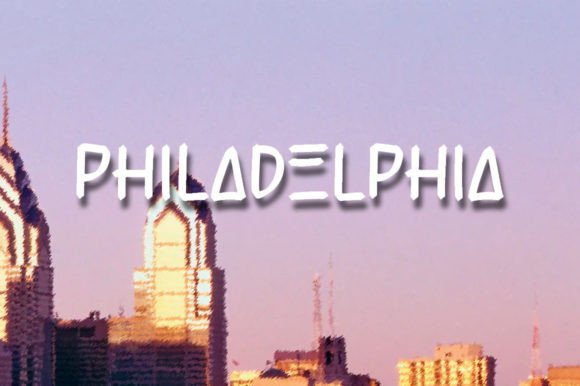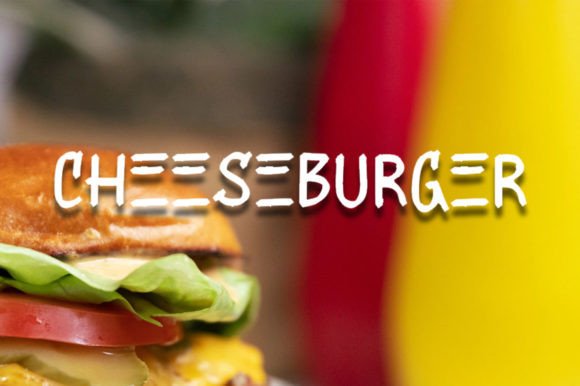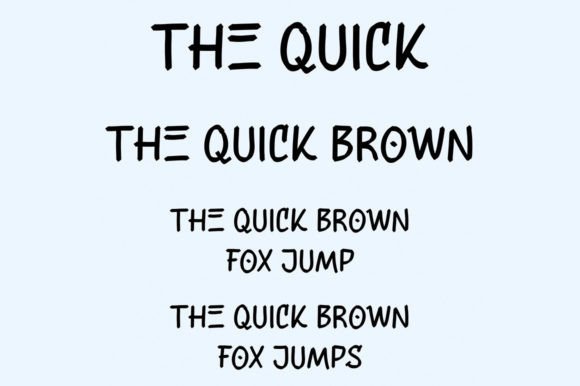
Minke Font
About Minke Font
**”Minke”** is a fun and casual handwritten font that brings a sense of playfulness and informality to your design projects. Whether you’re working on crafts, digital design, presentations, or creating greeting cards, this font is a versatile choice that adds a touch of personality to your work.
In crafting projects, **”Minke”** offers a whimsical and creative aesthetic. Its casual handwritten style complements the handmade and artistic nature of crafting, making it a valuable addition to your toolkit for DIY projects, scrapbooking, and more.
For digital design, **”Minke”** adds a relaxed and approachable vibe to your content. Whether you’re using it for web graphics, digital art, or other digital media, this font contributes a sense of informality and creativity to your designs.
Presentations become more engaging with **”Minke.”** Its casual and friendly appearance can be used for titles, headings, or other text elements in your slides, making your content more visually appealing and relatable.
Greeting cards designed with **”Minke”** have a fun and personalized touch. This font adds character and charm to your cards, making them more appealing to recipients.
In summary, **”Minke”** is a fun and casual handwritten font that is perfect for a wide range of design projects. Its playful and informal style makes it a valuable choice for crafts, digital design, presentations, greeting cards, and any project where a touch of personality and creativity is desired.